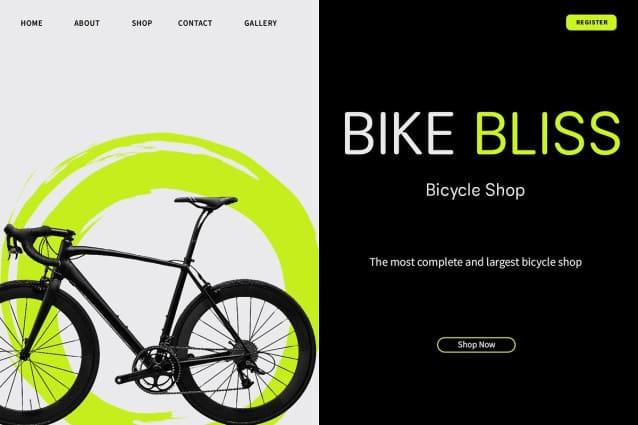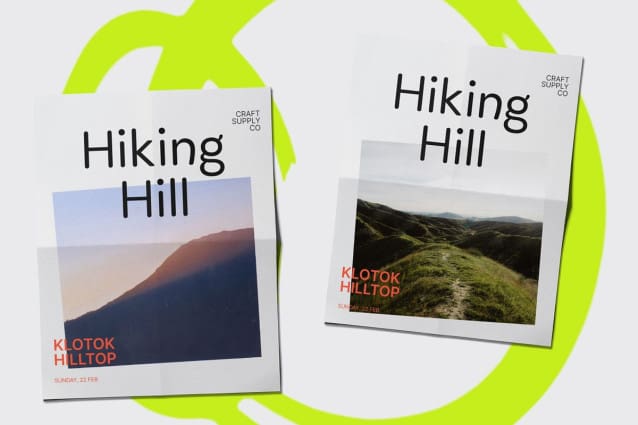
Mafinest Rounded Font
Mafinest Rounded Font: Embracing Minimalist Elegance. Subtle Contrast, Maximum Impact Mafinest Rounded embodies the essence of minimalist design with its low-contrast sans serif style. The subtle variation in stroke weight ensures a clean and understated aesthetic.
Rounded Stem Endings for Softness Featuring rounded stem endings, This font exudes a gentle and approachable vibe. These softened edges add a touch of warmth and friendliness to the otherwise geometric shapes.
Grotesque Form for Modernity Drawing inspiration from grotesque typefaces, This font adopts a contemporary yet timeless appearance. Its geometric proportions and simplified letterforms contribute to its modern allure.
Perfect for Minimalist Projects Tailored for minimalist projects, This font excels in environments where simplicity and clarity are paramount. Whether it’s web design, branding, or editorial layouts, this font ensures effortless readability and understated elegance.
Minimalism Meets Modernity This font emerges as a versatile choice for designers seeking minimalist elegance with a modern twist. Its low-contrast, rounded features, and grotesque-inspired form make it an ideal option for a wide range of design applications, offering both style and readability. Experience the seamless blend of simplicity and sophistication with This font.